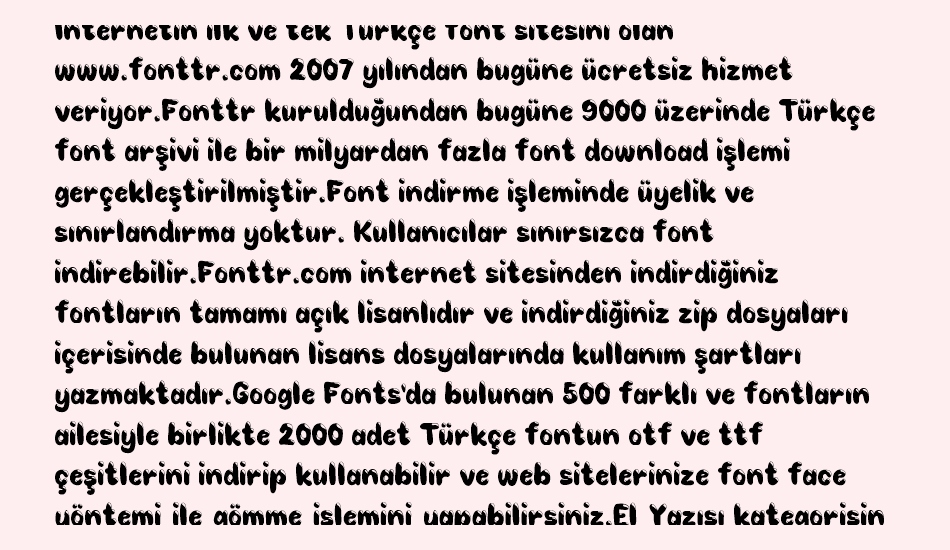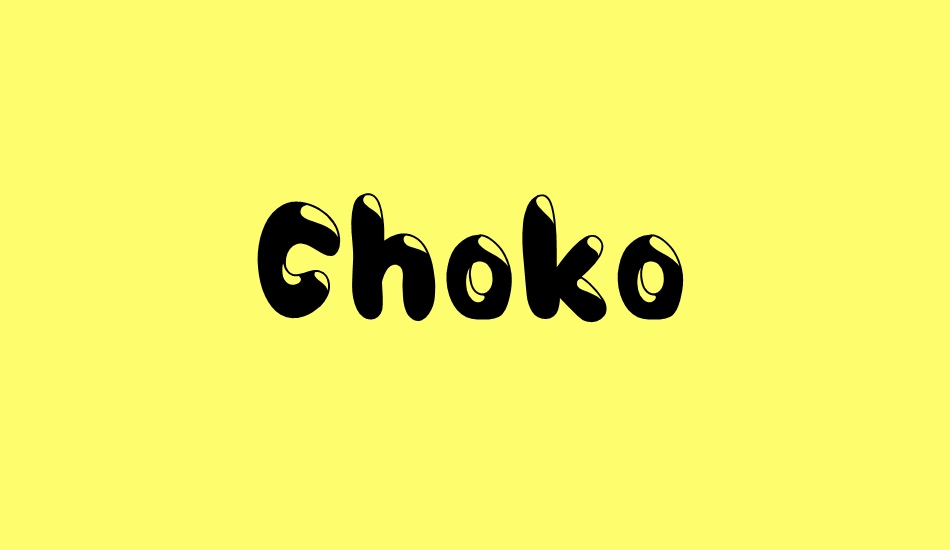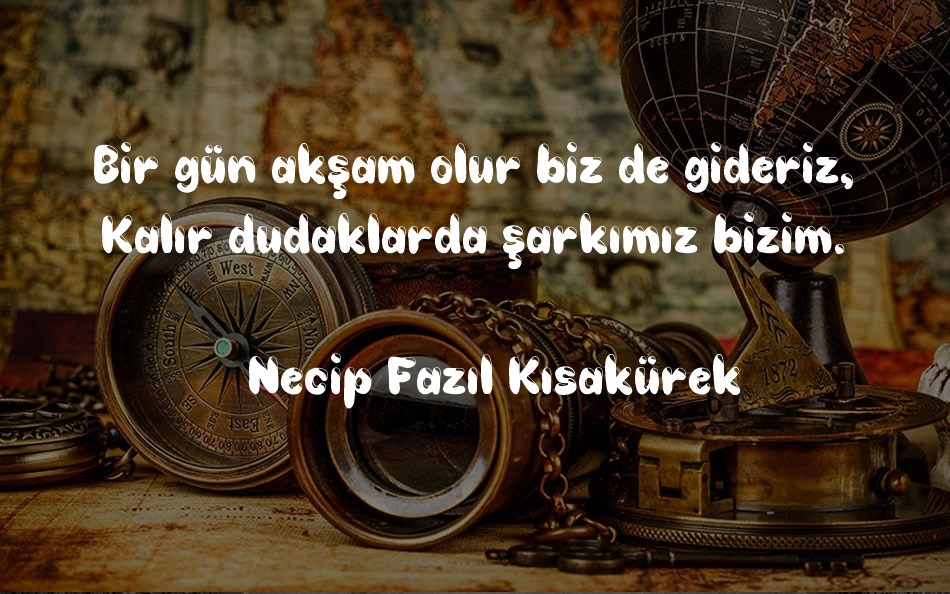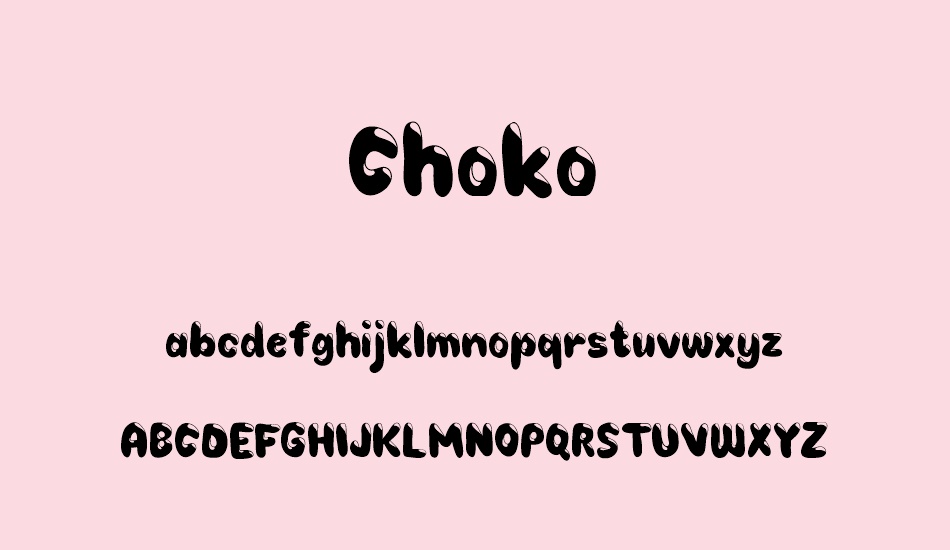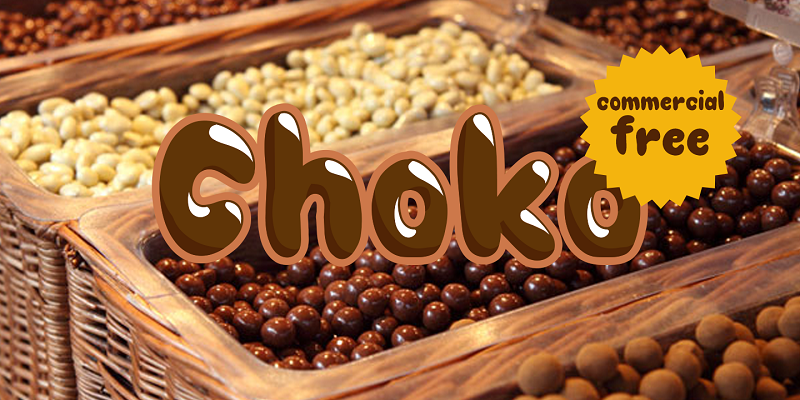
Choko font
The Choko font was created by M?ns Greb?ck in 2011 but remained unreleased until 2016.
Place the different styles on top of each other to create a multicolor text.